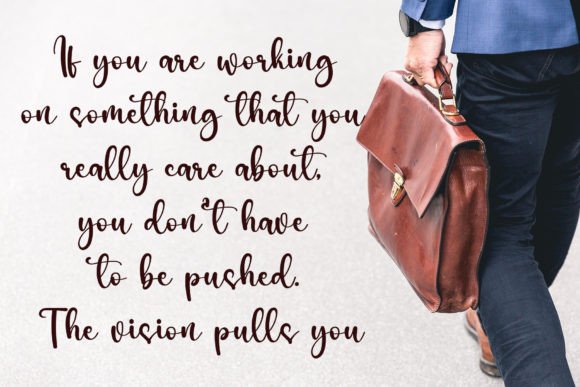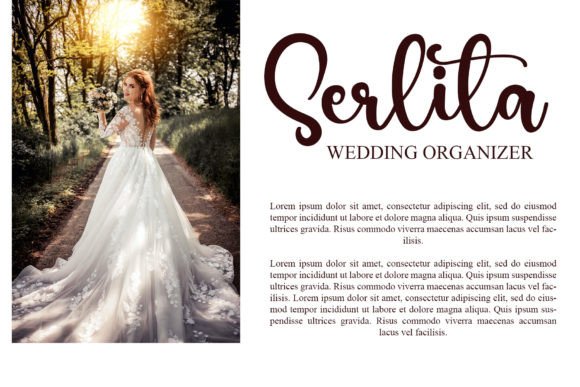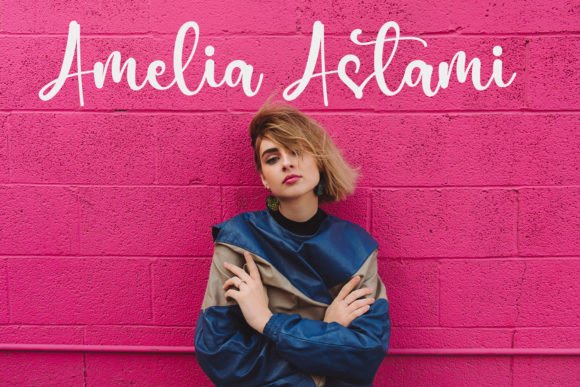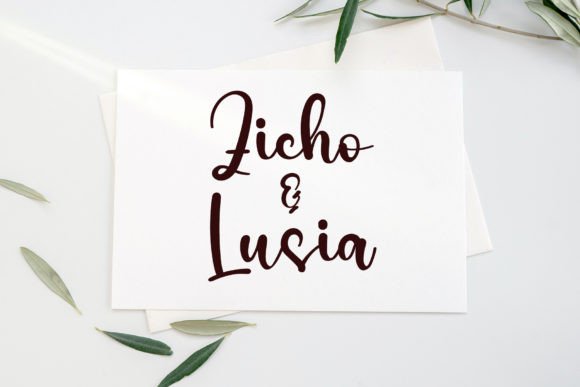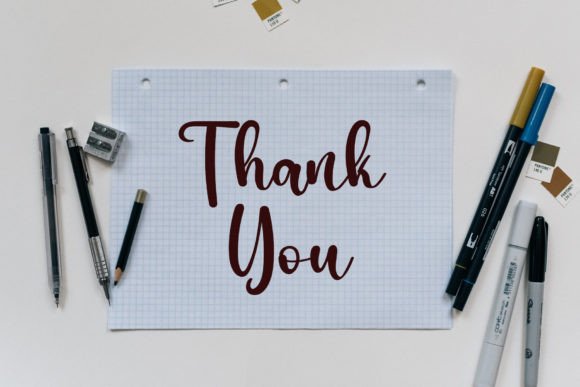
The Quest for the Perfect Font: Discovering Clipart Font
Ah, the eternal struggle of finding the perfect font for your design project. I recall a particularly frustrating moment when I was working on a client’s wedding invitation, desperately searching for a font that exuded elegance and sophistication. The client’s request was simple: “Make it look like classic calligraphy, but with a modern twist.” Sound familiar? That’s when I stumbled upon Clipart Font, and my design woes were instantly alleviated.
First Impressions: A Love Affair with Clipart Font
Clipart Font is a stylish handwritten font that embodies the essence of timeless classic calligraphy, infused with a contemporary atmosphere and impeccable form. This beautifully crafted font is balanced and varied, making it an excellent choice for enhancing the beauty of your projects. Here’s what I love about it:
- ✨ Elegant and sophisticated, perfect for high-end designs
- 💫 Supports OpenType features, glyphs, and stylistic alternates
- 🎨 Versatile and adaptable to various design styles
The Not-So-Perfect: A Few Quirks
No font is perfect, and Clipart Font is no exception. Here are a few minor limitations to keep in mind:
- 🤔 Limited multilingual support (but it covers the most commonly used languages)
- ⚠️ Some users might find the font a tad too ornate for very casual designs
The Story Behind Clipart Font
Clipart Font was designed with the intention of capturing the essence of classic calligraphy while infusing it with a modern twist. The designer aimed to create a font that would be both elegant and versatile, suitable for a wide range of design applications. Although the real story behind the font’s creation remains a mystery, it’s clear that the designer succeeded in crafting a truly exceptional font.
| Is Clipart Font suitable for body text? | While Clipart Font is highly legible, it’s primarily designed for display purposes. For body text, consider using a more straightforward font. |
| Does Clipart Font support non-English languages? | Clipart Font has limited multilingual support. If you need to use it for a non-English language, make sure to check the font’s character set. |